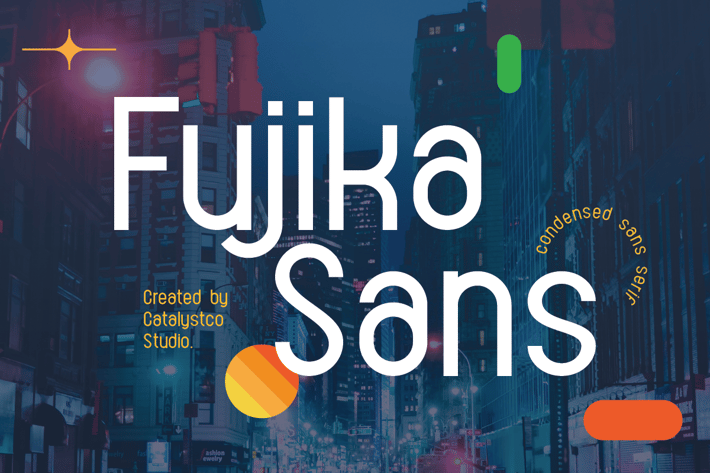
Fujika Condensed Sans Serif Font
Fujika Condensed Sans Serif Font emerges as a modern condensed sans-serif typeface, characterized by its clean and geometric structure that exudes a versatile and contemporary feel. The condensed nature of the letterforms allows for efficient use of space without sacrificing legibility, making it a practical choice for various design applications. Its crisp lines and uncomplicated shapes convey a sense of clarity and modernity, aligning well with urban and minimalist aesthetics. Fujika Sans is designed to be both functional and stylish, offering a contemporary voice for a wide range of projects.
The balanced proportions and subtle nuances in its design lend Fujika Sans a sophisticated yet approachable character. Its versatility shines through its ability to perform effectively in both display settings, where its clean lines make a strong visual impact, and in longer text blocks, where its legibility ensures a comfortable reading experience. Imagine Fujika Sans bringing a sense of modern efficiency to website body text, providing a clean and contemporary look to corporate branding, or making a bold statement in poster designs. This typeface offers a harmonious blend of practicality and modern design sensibility.
Main Features
Ligatures & Alternate
Numeral & Punctuations
* Multilingual Support